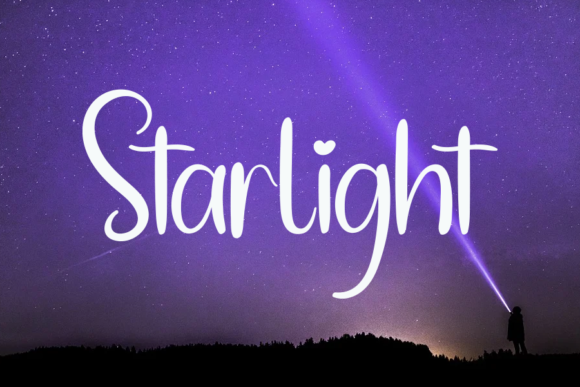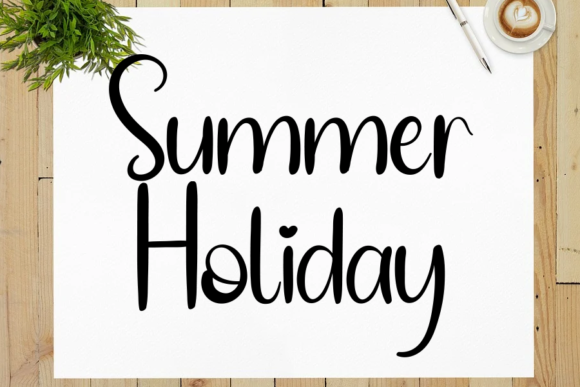
Introduction to September Font
Have you ever stumbled upon the perfect font that makes your creative project stand out from the crowd? For many designers, this moment is pure magic. It’s the instant when you know you’ve found the perfect partner for your design. For me, this moment happened when I discovered the September Font – a simple, quirky, and adaptable handwritten font that’s perfect for a wide range of creative projects.
The September Font is a high-quality design resource that can elevate your designs to the next level. Its elegant and unique style makes it a valuable asset for any designer looking to add a personal touch to their work. Whether you’re creating wedding invitations, business cards, or social media posts, this font is sure to make a lasting impression. And the best part? It’s available for free download, making it an accessible design resource for everyone.
With its transparent background and endless design possibilities, the September Font is a game-changer for designers of all levels. Whether you’re a seasoned pro or just starting out, this font is sure to inspire your next creative project and help you achieve your design goals.
Key Features of September Font
- High-quality design for various creative projects, including digital art and graphic design.
- Transparent background, allowing for seamless integration with other design elements.
- Includes 20 unique glyphs, including uppercase and lowercase letters, numbers, and punctuation marks.
- Designed with a clean and modern aesthetic, perfect for a wide range of design applications.
Honest Review: September Font
I recently had the chance to work with the September Font for a creative project, and I must say it was a great experience. The font itself is a high quality, elegant script that can add a touch of sophistication to any design. One of the things I liked most about it is that it’s available for free download, making it a fantastic resource for designers on a budget.
- What works well:
- ✨ Beautifully crafted, elegant script design
- ✨ Suitable for a wide range of creative projects, from branding to editorial design
However, I did encounter a few limitations. The font’s transparent background can be a bit tricky to work with, especially when combining it with other design elements. Additionally, the font’s size may not be suitable for very small or very large text.
- Limitations:
- ⚠️ May require some extra effort to work with transparent background
- ⚠️ Font size may not be suitable for very small or very large text
Overall, I was impressed with the September Font’s quality and versatility. While it may have some limitations, it’s a fantastic addition to any designer’s toolkit. I would definitely recommend it to anyone looking for a high-quality, free design resource.
Tips for Getting the Most Out of the September Font
To get the most out of the September Font, use it in combination with other high-quality design resources. Experiment with different font sizes, colors, and arrangements to create a unique and eye-catching design. The September Font is a versatile design resource that can be used in a variety of creative projects.
The September Font is commonly used in design projects that require a clean and simple look. It is ideal for use in logos, business cards, and other marketing materials. The font’s transparent background makes it easy to use in designs that require a lot of text or intricate details.